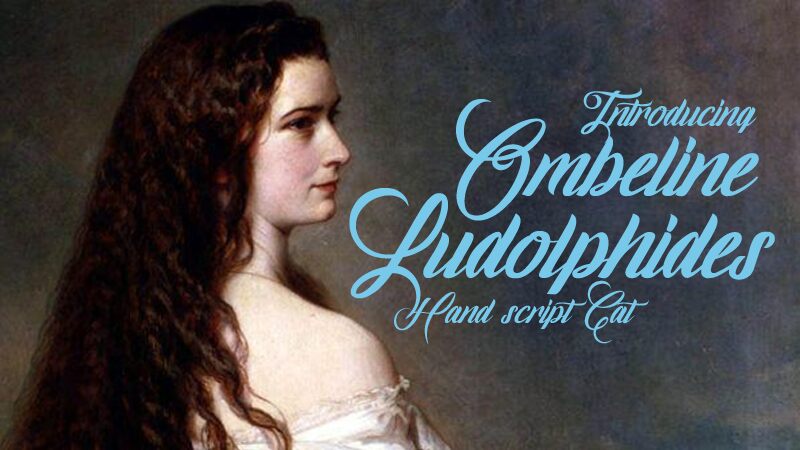
Ombeline Ludolphides is a captivating calligraphic font that exudes elegance and refinement. The ornate, flowing strokes evoke a sense of timeless artistry, making it a versatile choice for projects that require a touch of sophistication. The font's distinct, cursive style lends itself beautifully to invitations, wedding stationery, and luxury branding, where its graceful aesthetic can truly shine.
Ombeline Ludolphides also offers potential for use in editorial design, book covers, and high-end packaging, seamlessly blending traditional craftsmanship with modern sensibilities.
Ombeline Ludolphides